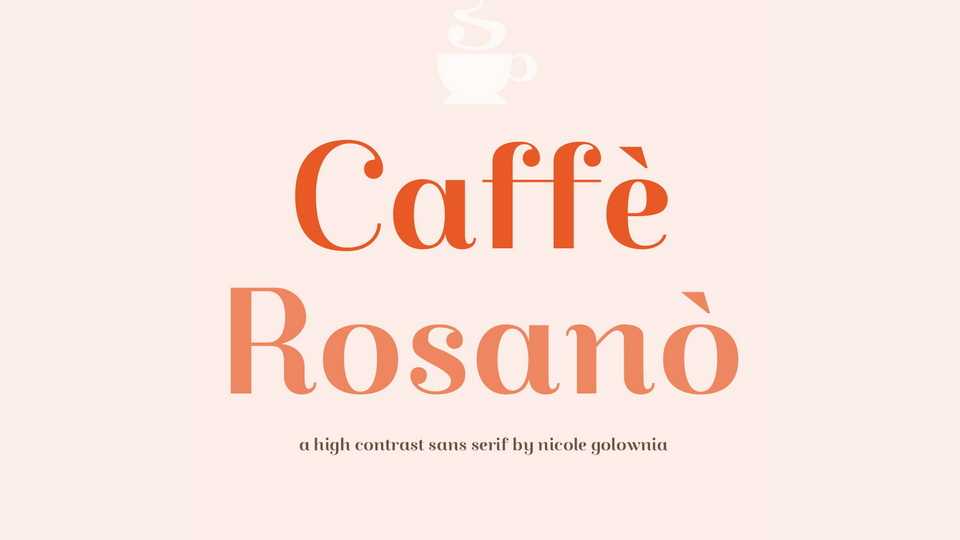
Download Caffè Rosanò font, a high contrast, sans serif display typeface influenced by the elegance of serif Didone styles with the personality of a script style.
Designer: Nicole Golownia